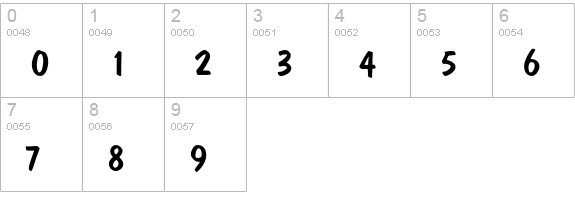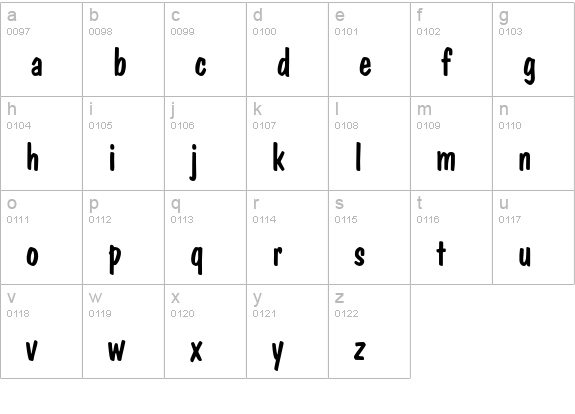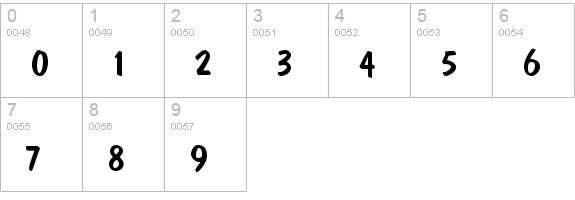
Dom Casual Std Medium Font Details
Dom Casual Std Medium is a balanced, medium-weight variant in the Dom typeface family \xE2\x80\x94 well suited to sub-headlines, navigation, and balanced editorial work.
Dom Casual Std Medium font is a charming and playful typeface that exudes a casual and friendly vibe. Its rounded edges and unique letterforms make it perfect for adding a touch of whimsy to any design project. Whether you're creating invitations, posters, or branding materials, Dom Casual Std Medium is sure to stand out and make a statement. The best part? This delightful font is available for free download at FontsMarket.com. With its warm and approachable appearance, Dom Casual Std Medium is a versatile choice for anyone looking to infuse their designs with a sense of fun and personality. Give your projects a fresh and lively feel with this eye-catching font that is just a click away.